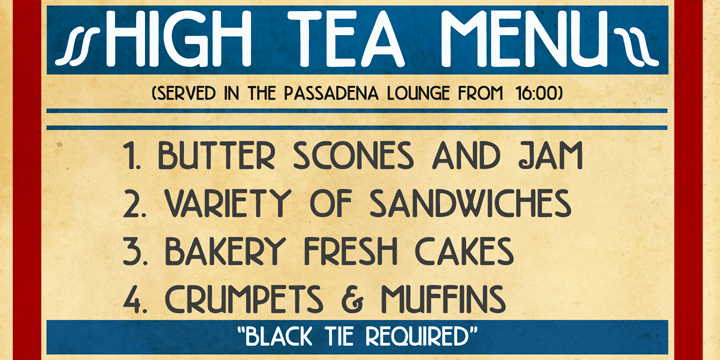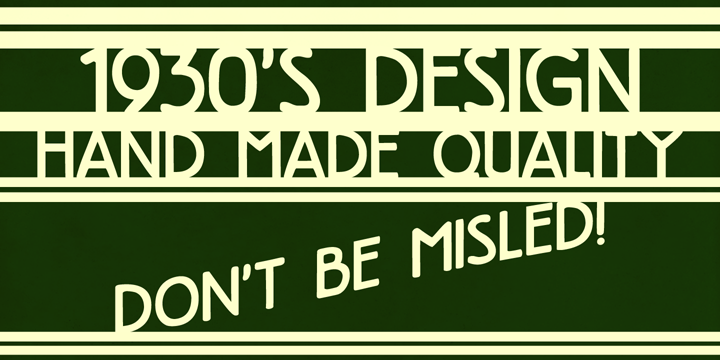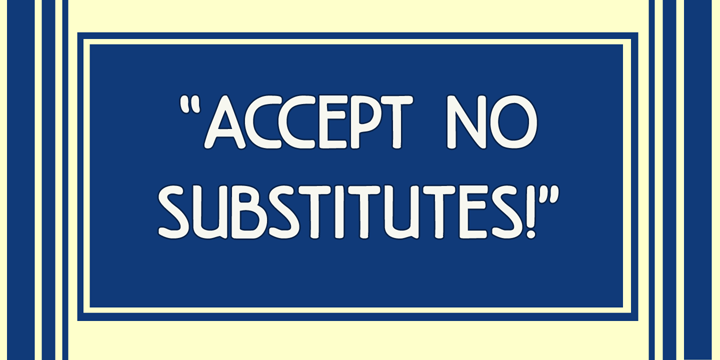
High Tea is a comic font published by Hanoded.
High Tea is a handmade typeface, which was inspired by a 1930’s menu from a classy restaurant. High Tea is a classy font, with some unique letters and an overall ‘Upper Crust’ feel to it. It is ideal for headlines and posters.
Care for a spot of milk in your Oolong, darling?